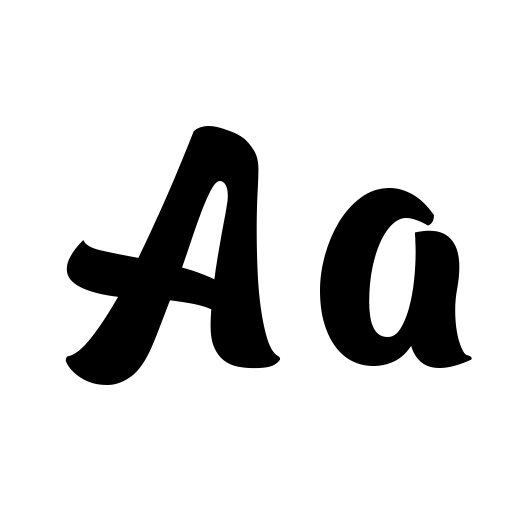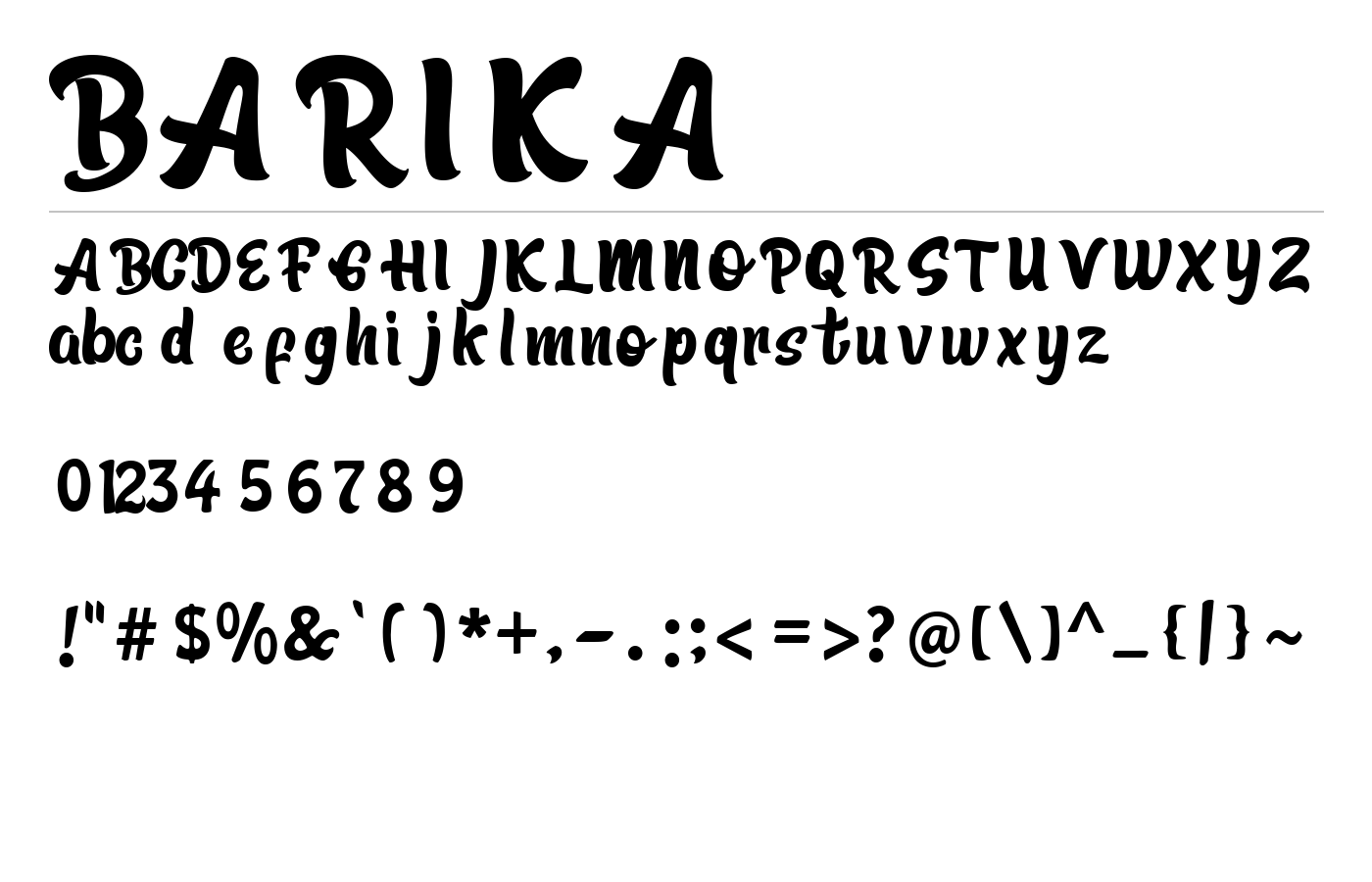
Barika is a playful and friendly handwritten typeface with a casual brush style that combines smooth curves and moderate stroke contrast. Its lively letterforms feature unique shapes and a slightly condensed width, making it perfect for creative projects, children’s books, branding, and fun headlines where a warm and approachable feel is desired. This font shines in settings that benefit from personality and informality without sacrificing readability.
BARIKA Font
About BARIKA Font
| Font family | BARIKA Font |
| Designer | Faras Dina |